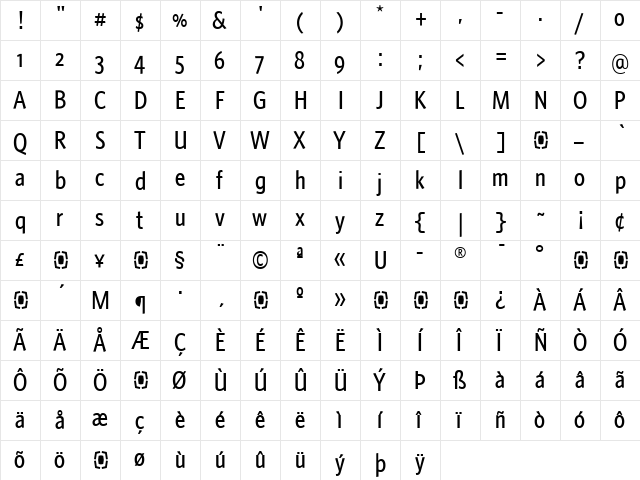
WhitneySans-MediumCondOSF Regular
Design Context for WhitneySans-MediumCondOSF Typeface
WhitneySans-MediumCondOSF offers clean, dependable letterforms without strong stylistic allegiance, making it a practical choice for designers who need flexibility. The condensed width makes it efficient for tight spaces without sacrificing legibility.